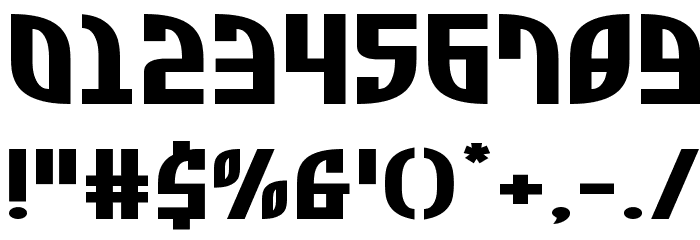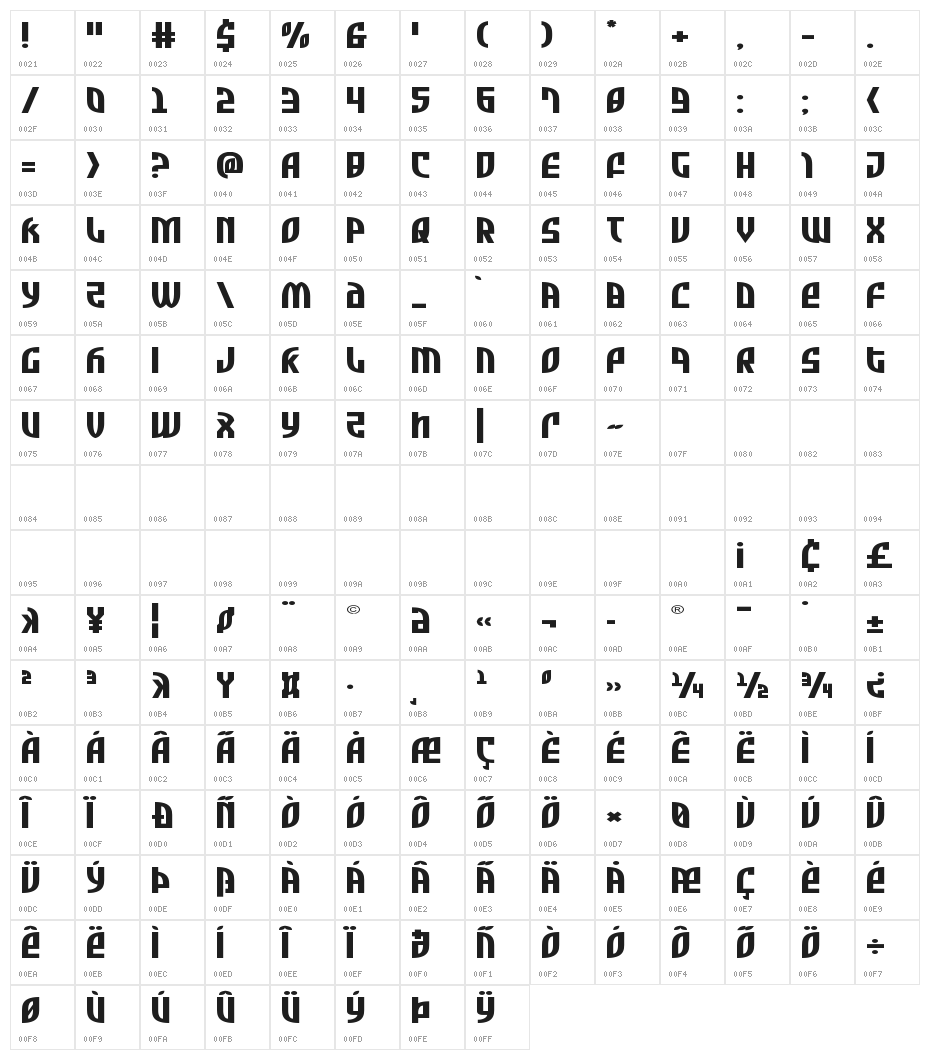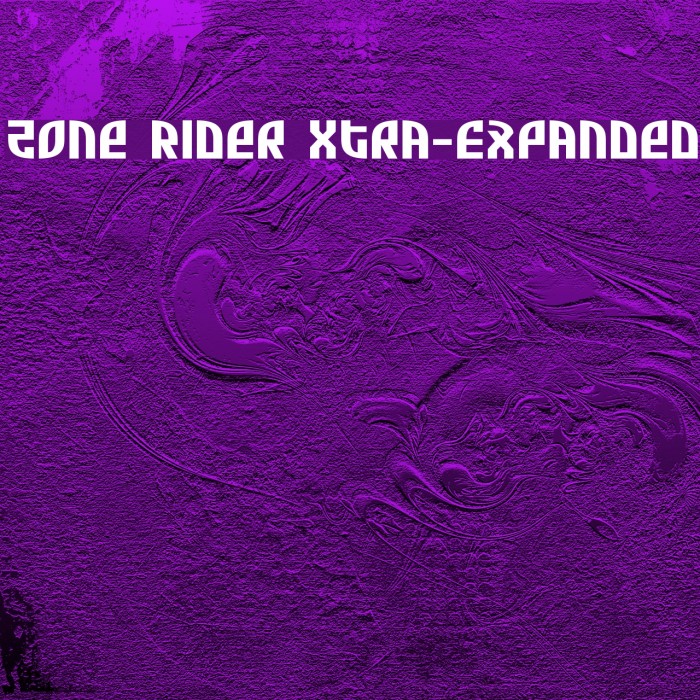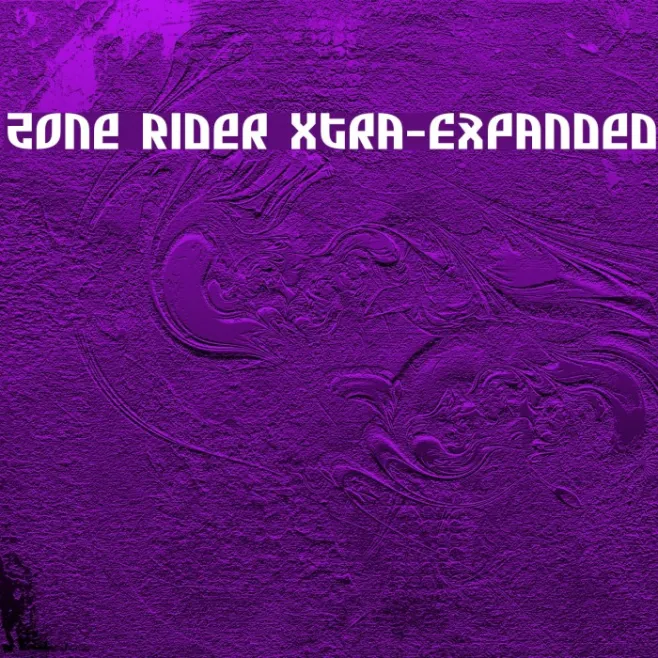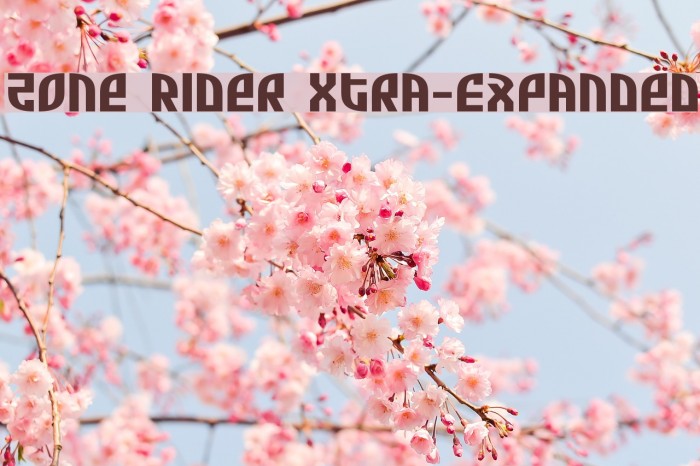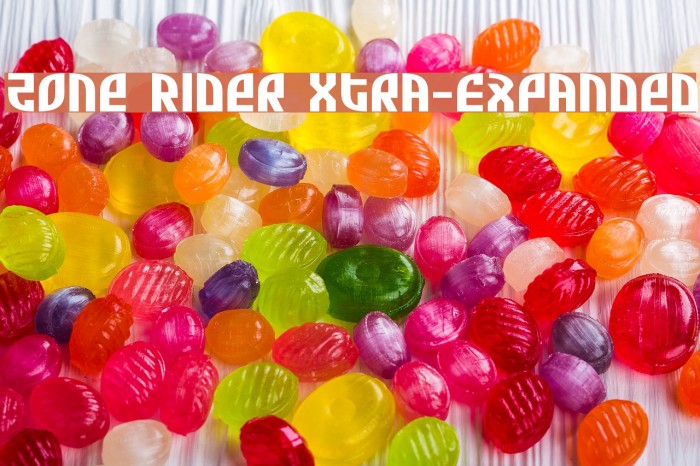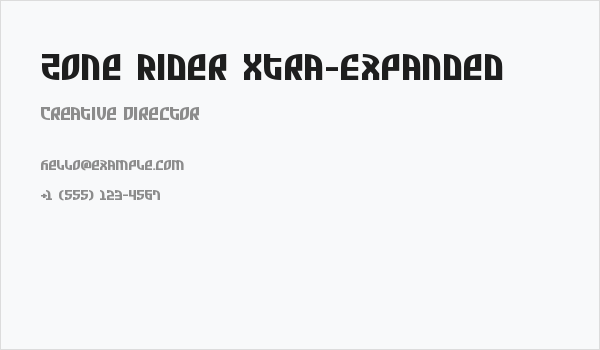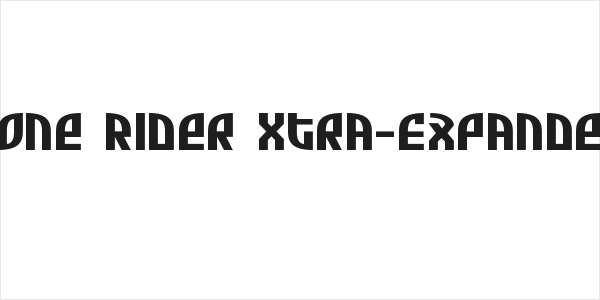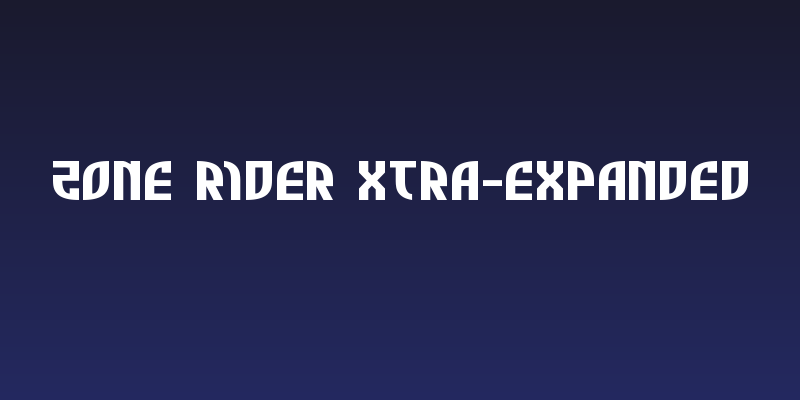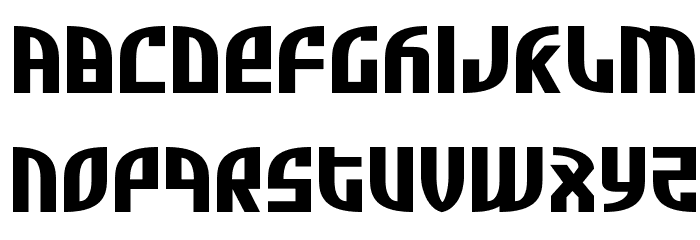
Zone Rider Xtra-Expanded Font
Zone Rider Xtra-Expanded Description
This font features a bold and futuristic design with a distinctly geometric structure. The characters are wide and have a strong presence, making them ideal for attention-grabbing headlines. The strokes are uniform in thickness, contributing to a cohesive and modern appearance. The angular cuts and sharp edges give it a dynamic and edgy feel, suitable for projects that require a contemporary and assertive look. The font maintains a consistent height across all characters, ensuring a balanced and harmonious visual flow.
| Proposed Projects | Ideal for sci-fi themed posters, video game titles, technology branding, and modern advertising campaigns. |